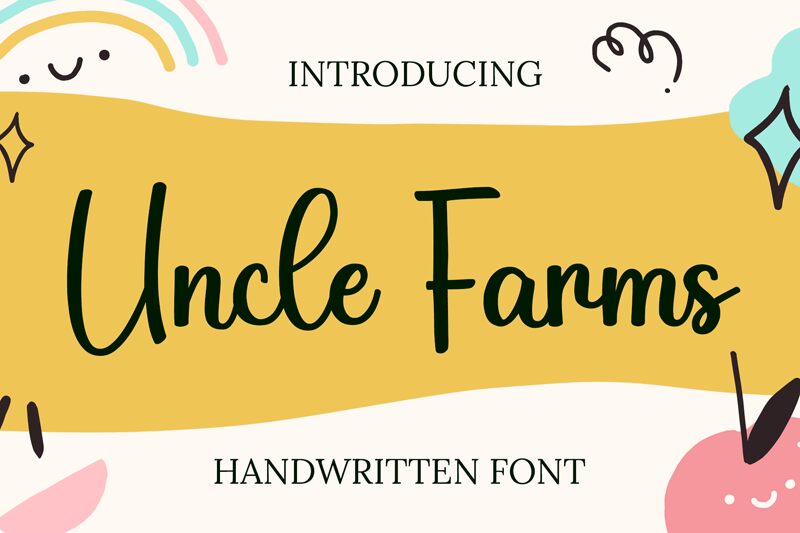
Uncle Farms, designed by Bearytype, is a charming semi-light handwritten font that brings warmth and authenticity to your projects. With its organic strokes and playful curves, this font adds a touch of whimsy to any design. Perfect for children's books, food packaging, or nature-inspired branding, Uncle Farms exudes a rustic charm that evokes memories of simpler times. Whether you're designing a logo for an artisanal farm or creating invitations for a rustic wedding, this versatile font will infuse your project with character and personality. Let Uncle Farms be the voice of your creative endeavors!